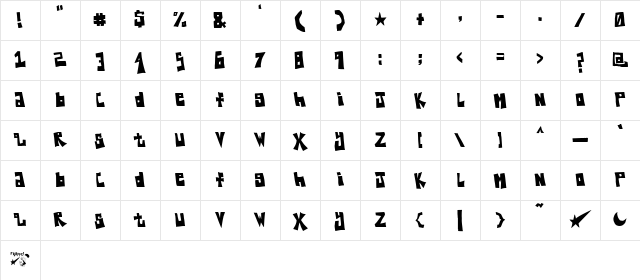
King Of The Dragonflies Regular
Foundry: Frappe
Designer: Jason Skoog
Design Context for King Of The Dragonflies
King Of The Dragonflies is a composed and adaptable typeface that performs quietly and consistently across a wide range of design contexts.